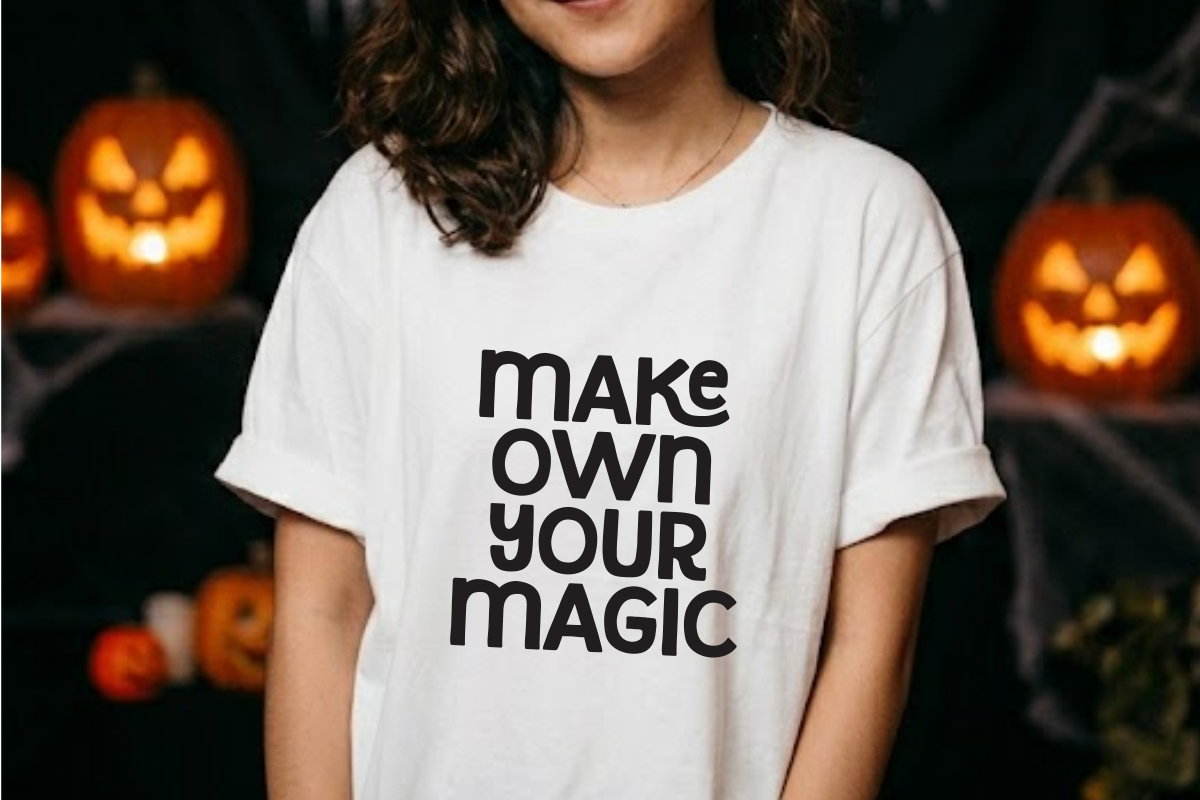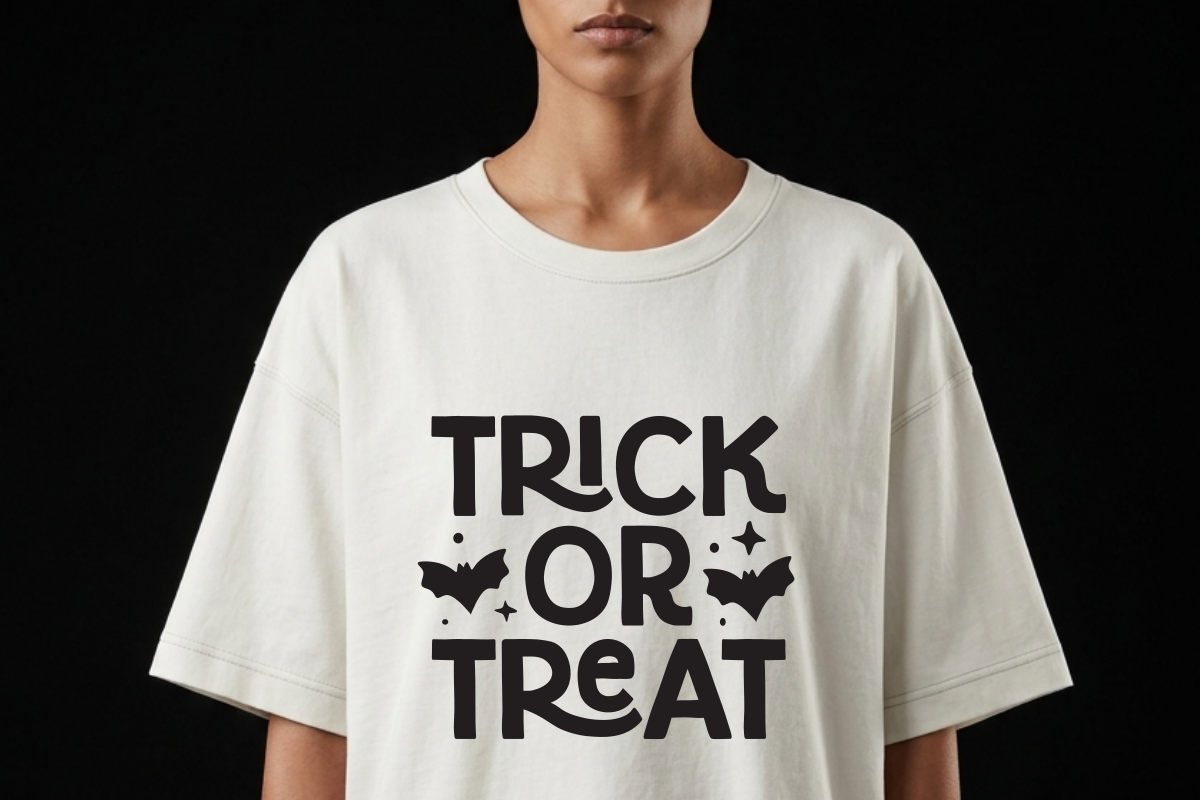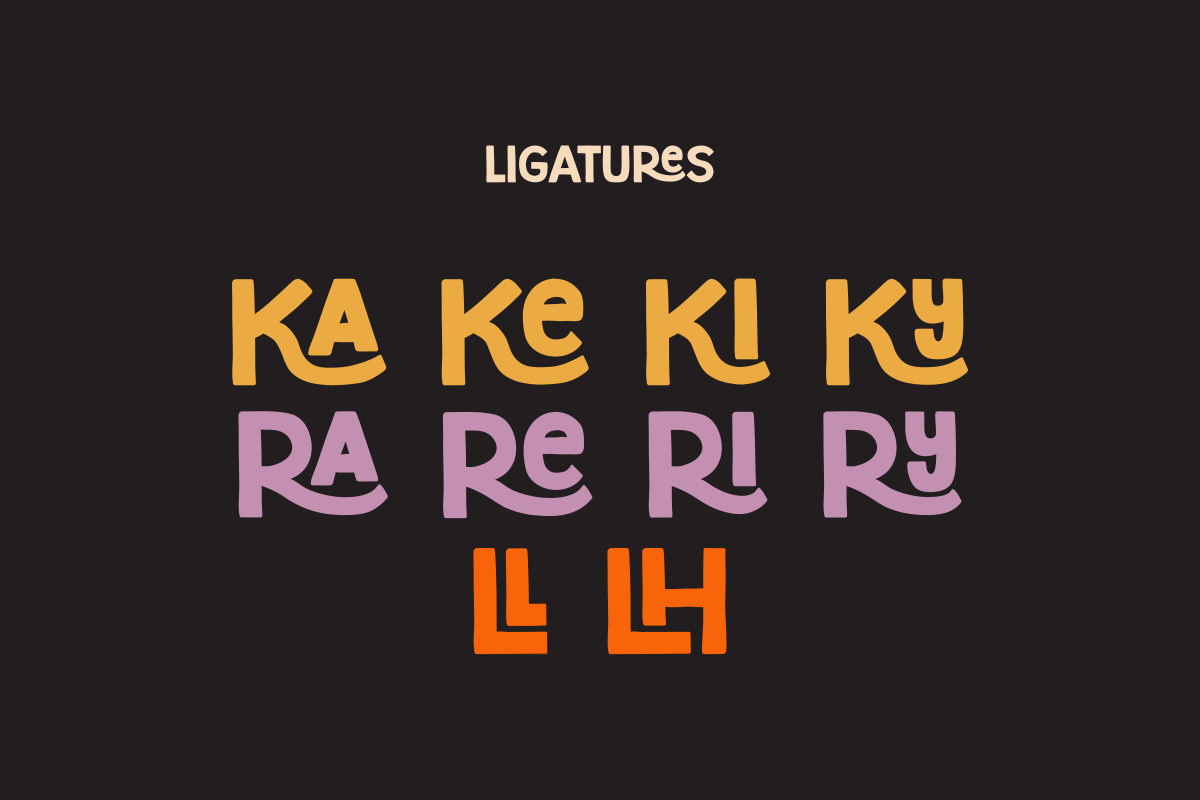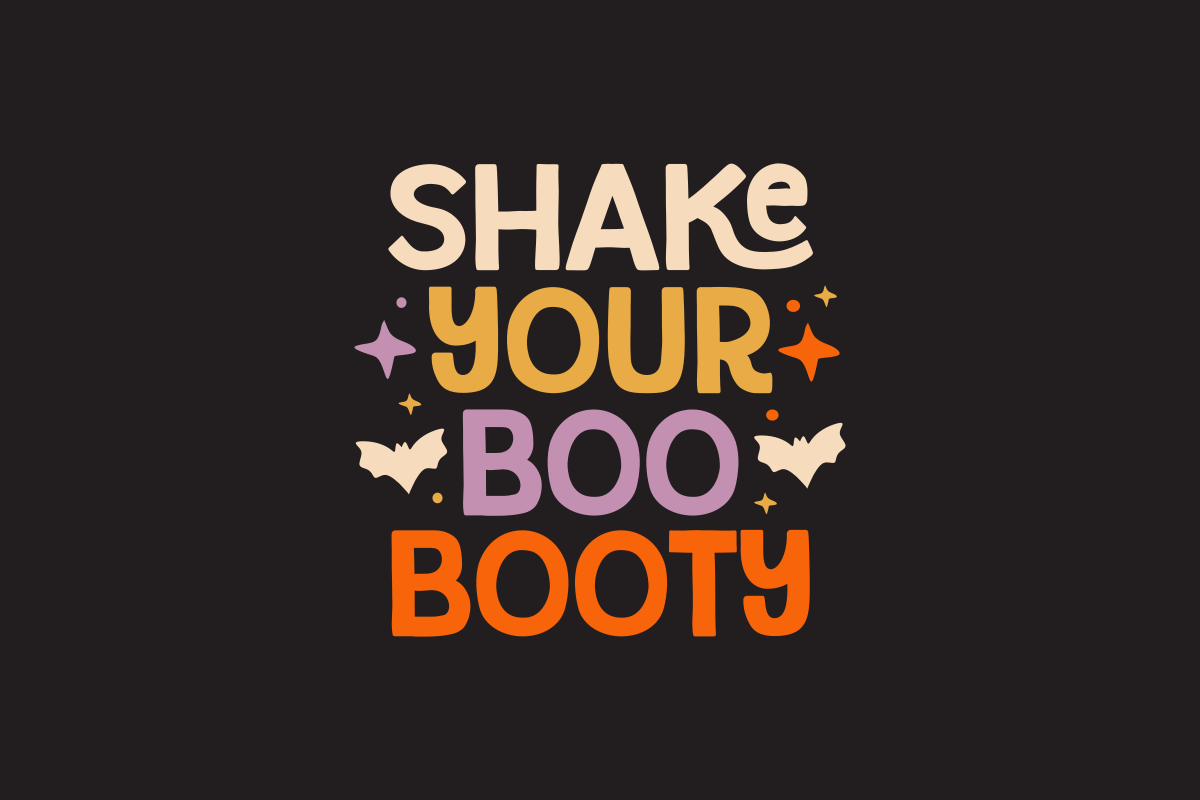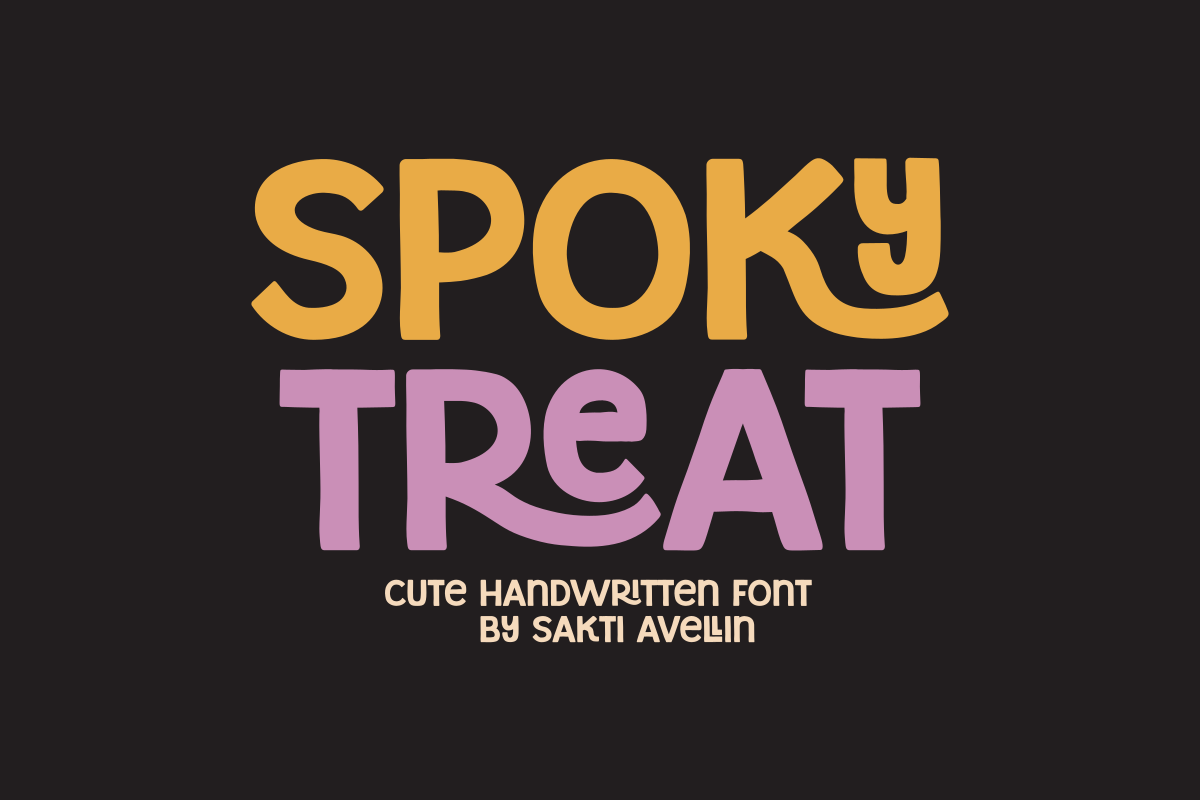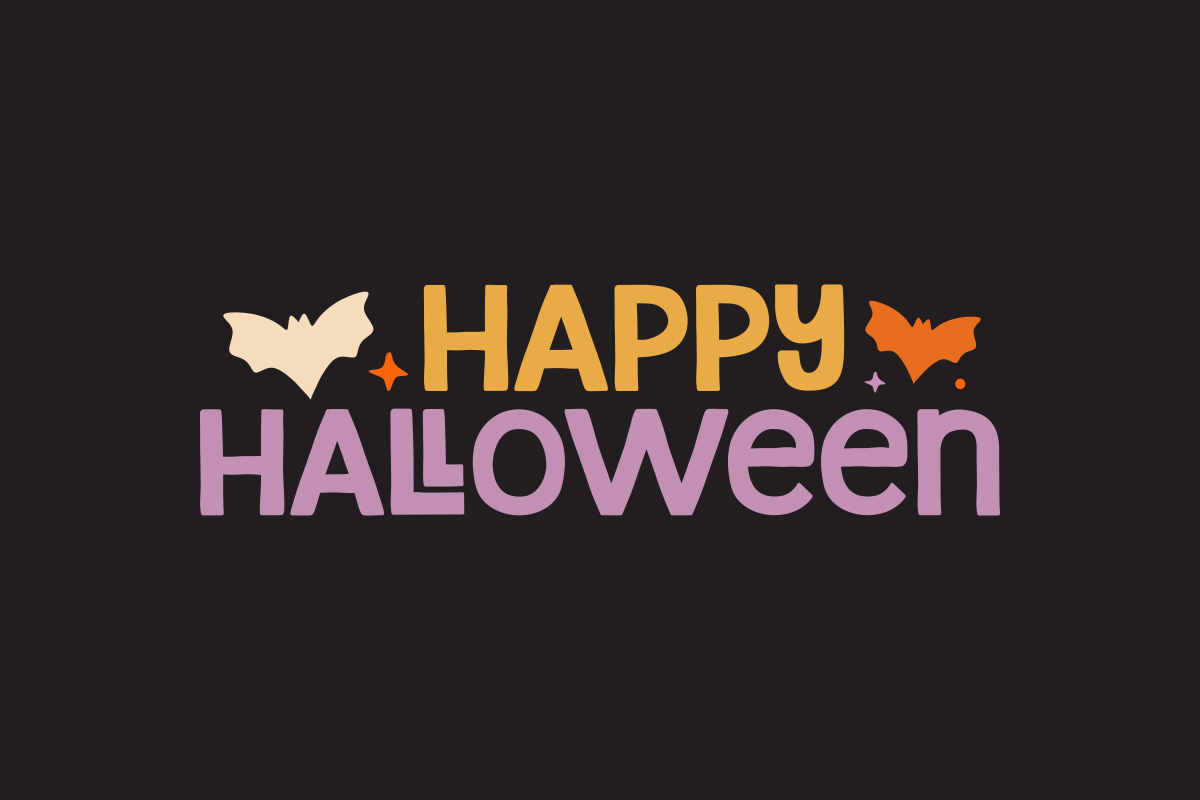
Spoky Treat - Cute Handwritten Font
Spoky Treat is a cute handwritten font designed to bring a playful and whimsical vibe to your creative projects. This charming display typeface features friendly, organic letterforms that perfectly balance a lighthearted mood with a hint of mystery. Ideal for Halloween branding, festive invitations, party decor, stickers, and cheerful social media graphics, this font ensures your headlines stand out with a unique, handcrafted personality. Whether you are designing for seasonal events, kids' crafts, or fun stationery, Spoky Treat adds a delightful and creative touch to every design.